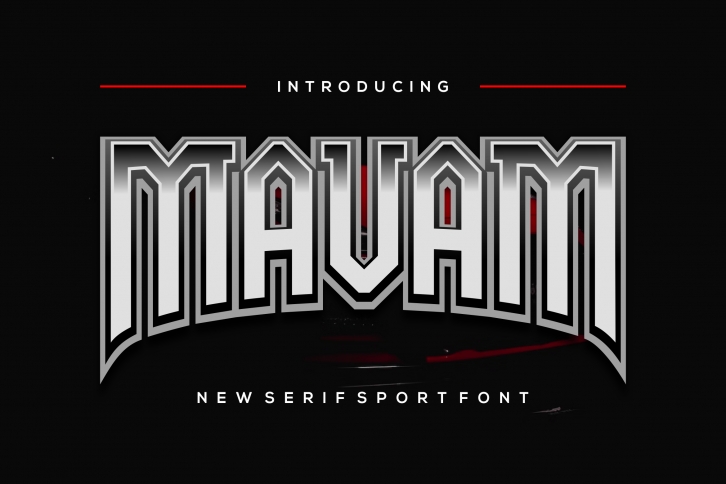
Mavam is a bold and strong display font with a powerful, metallic look. It is perfect for product packaging, headlines, posters, or anything that needs daring typography.